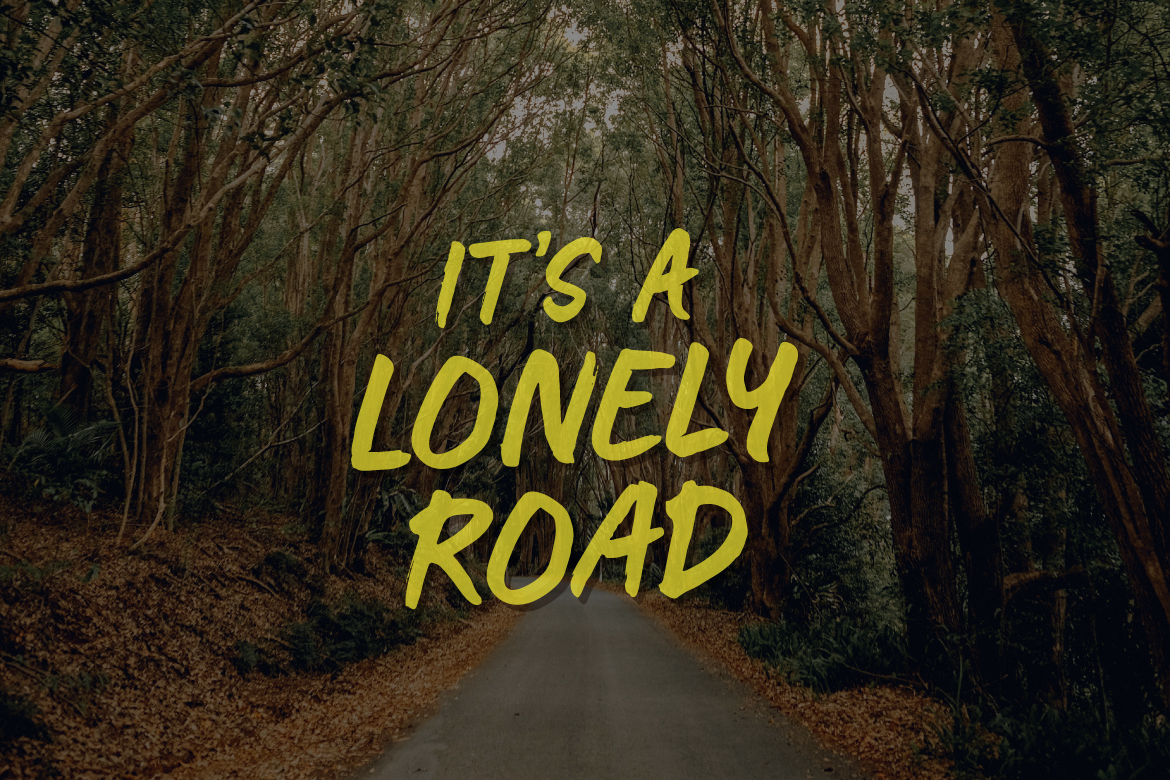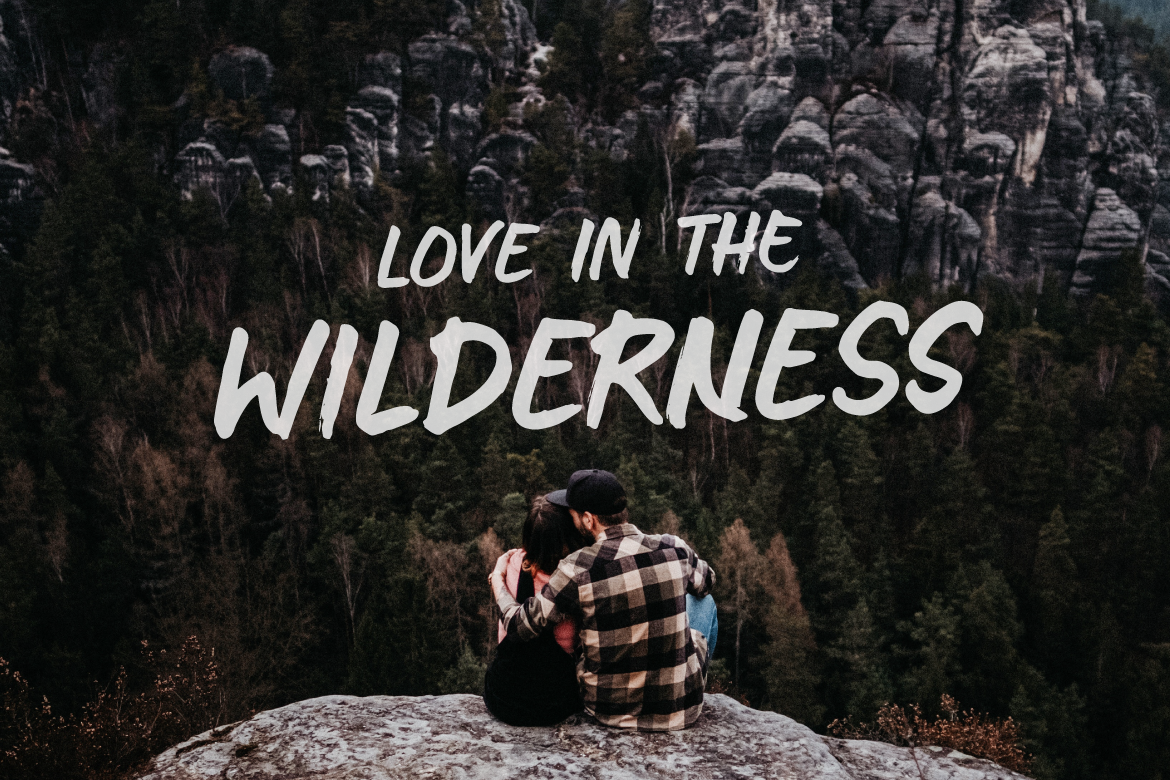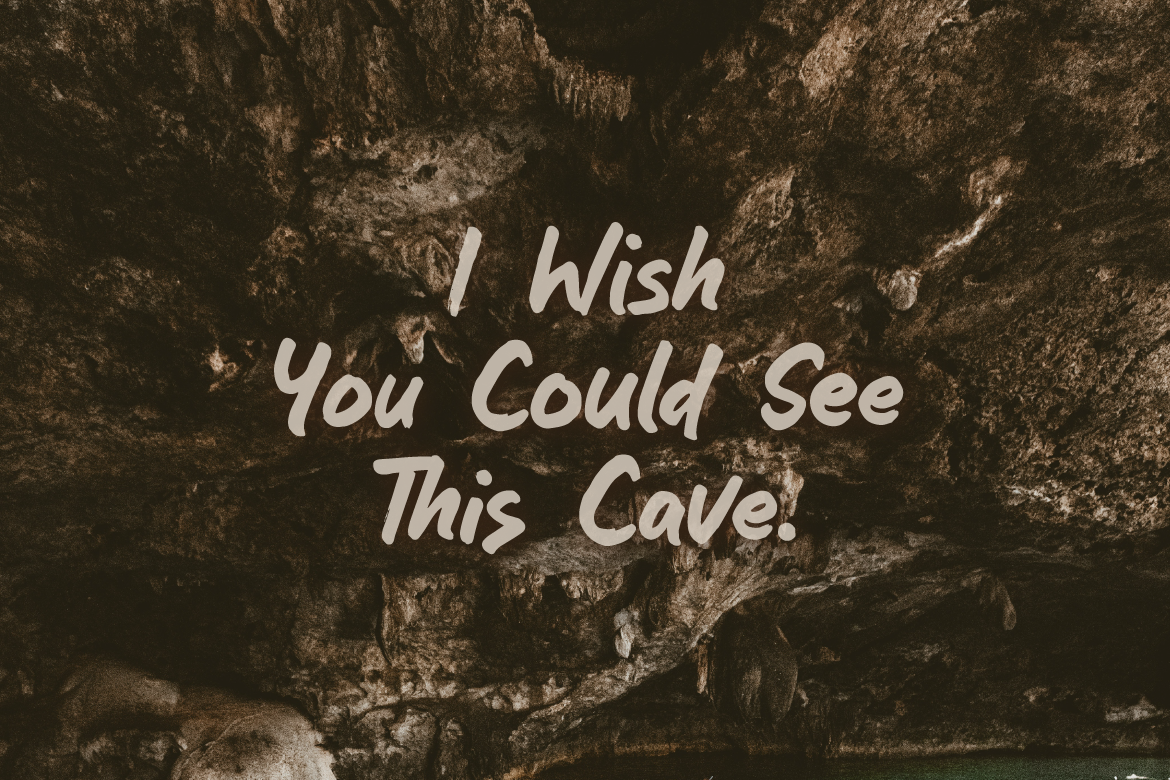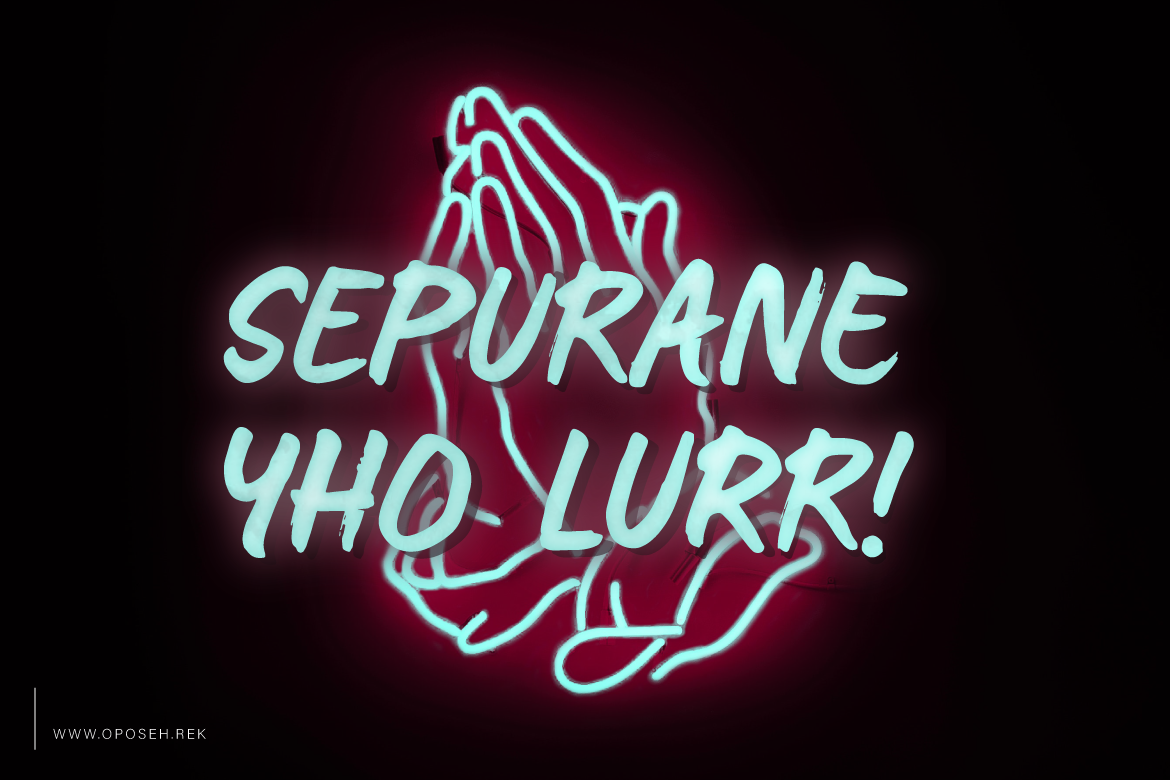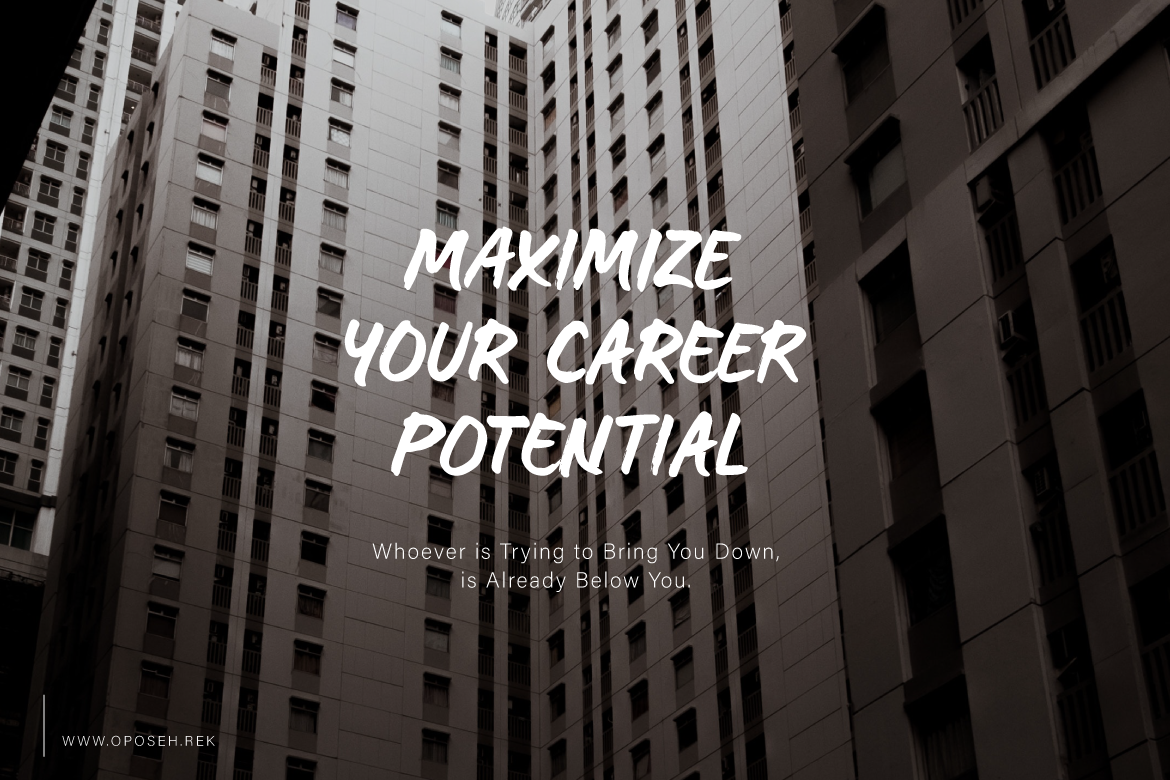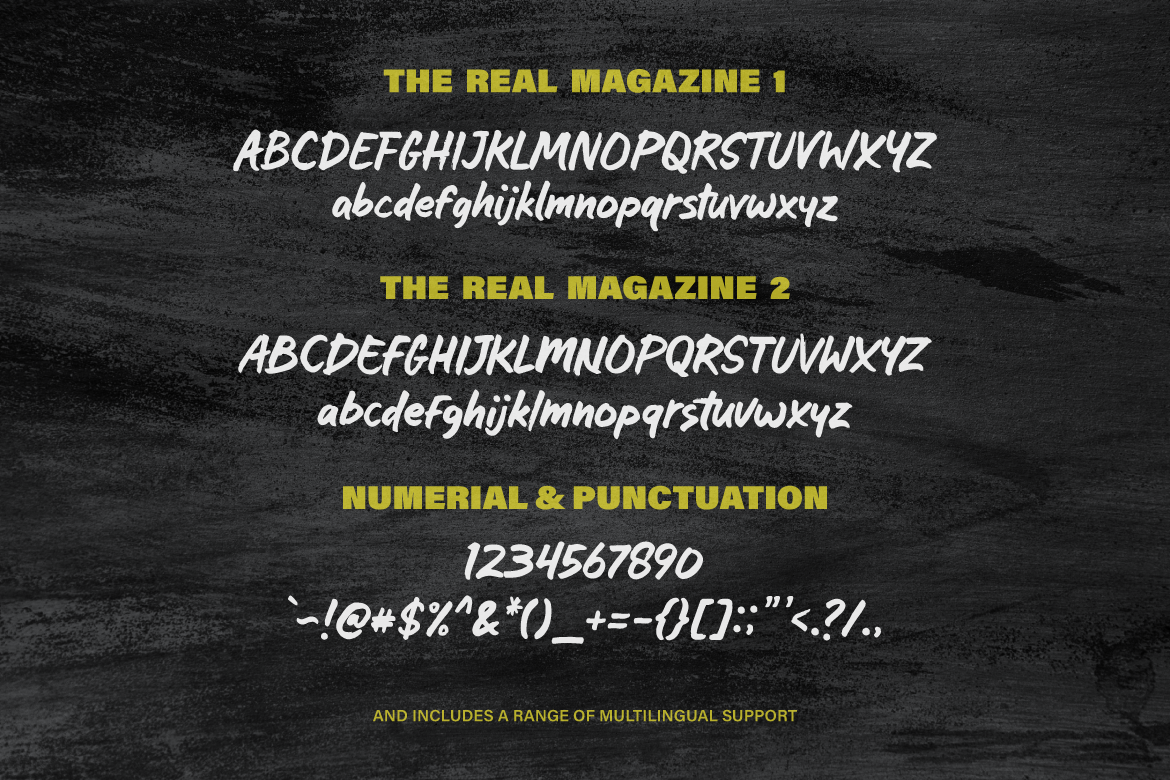
The Real Magazine Font
About The Real Magazine Font
The Real Magazine is a stunning dry brushed / marker font. This handwritten font is suitable for a wide range of uses and can give your designs a fresh, current vibe.